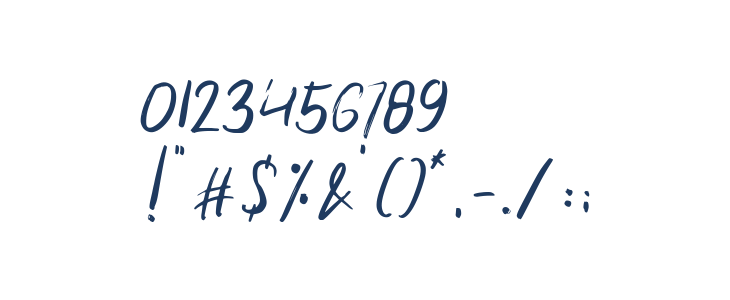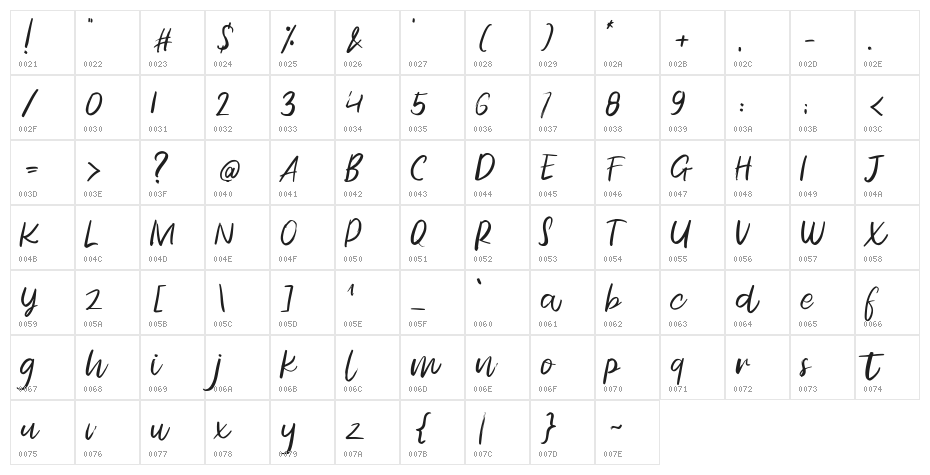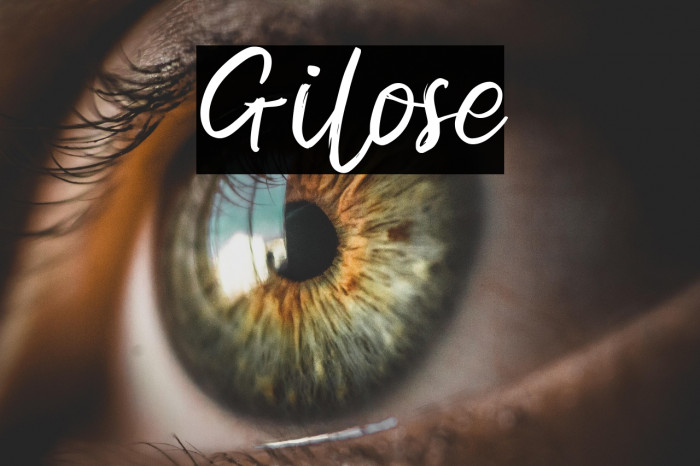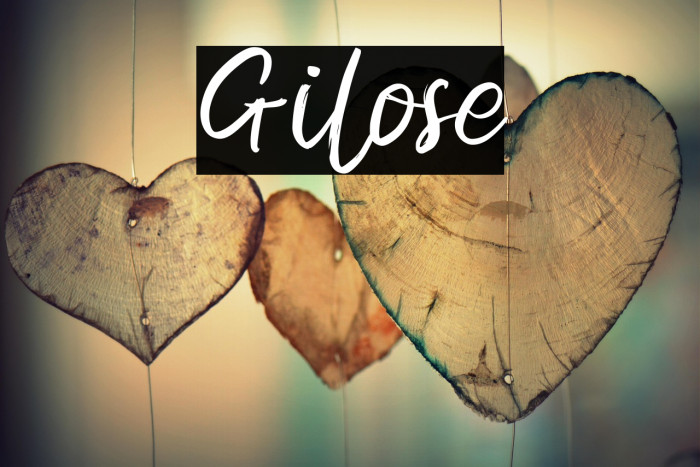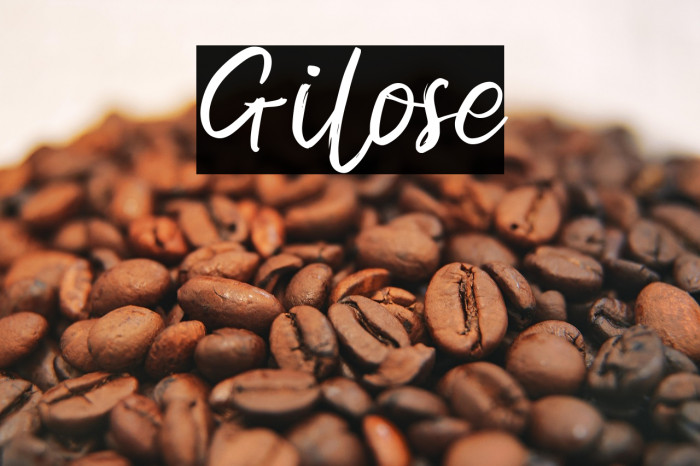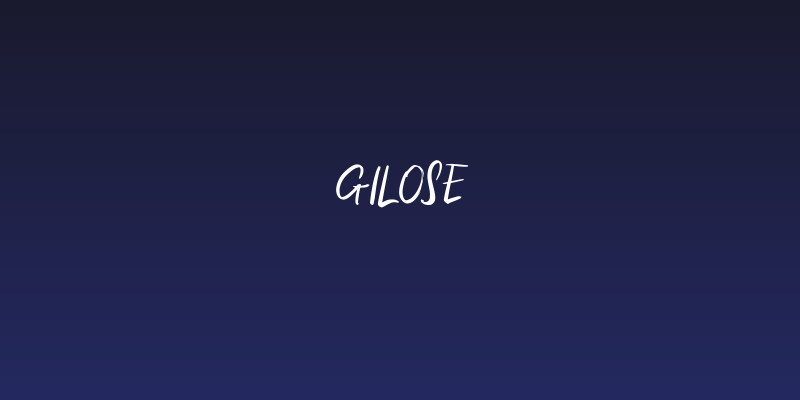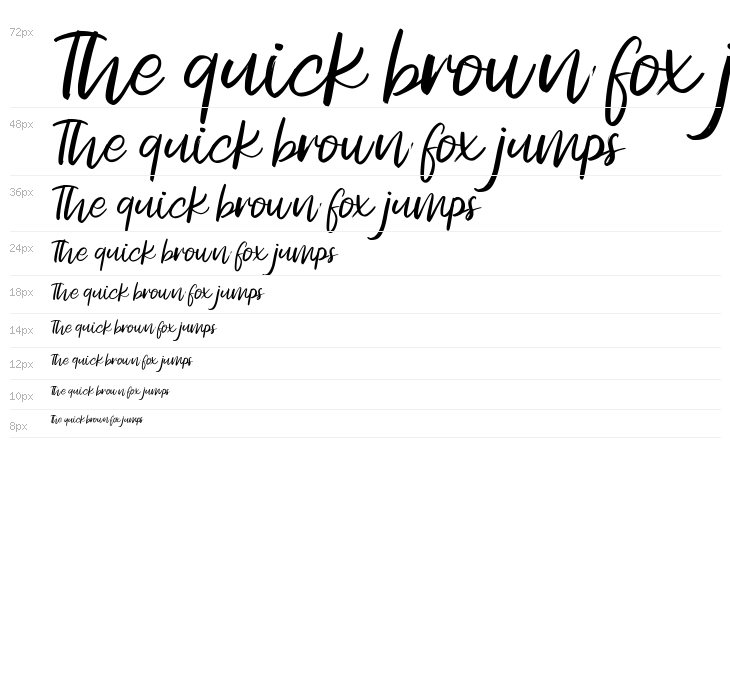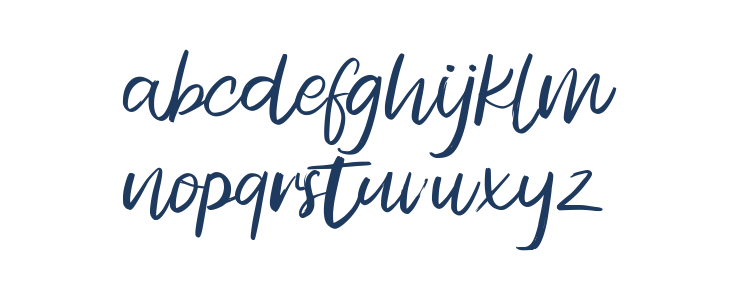
Gilose Font
Gilose Description
This font exhibits a lively and dynamic handwritten style, characterized by its fluid and cursive strokes. The letters are slightly slanted, giving a sense of motion and elegance. The uppercase and lowercase letters maintain a consistent style, with smooth curves and a natural flow. The numbers and special characters are designed to complement the alphabet, maintaining the same energetic and informal feel. The overall appearance is both artistic and approachable, making it suitable for creative and expressive projects.
| Use Case | Logos, Headlines, Creative projects |
| Proposed Projects | Ideal for greeting cards, invitations, personal branding, and creative posters. |